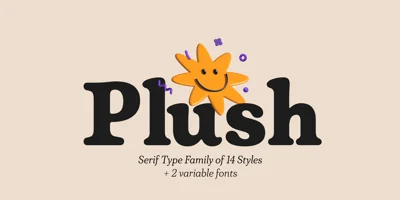
Plush Font
Plush Font is ideal for luxury hotel branding, high-end spa communications, premium bedding companies, boutique furniture stores, comfort-focused product packaging, intimate lounge signage, sophisticated interior design materials, and upscale lifestyle brand promotions.
What makes Plush Font exciting is its sumptuous comfort that embodies the tactile luxury and indulgent softness of premium materials through voluptuous letterforms. This lavish typeface features rounded, cushioned character shapes with gentle curves that evoke the satisfying embrace of plush fabrics and luxurious comfort, making it perfect for brands seeking to communicate ultimate relaxation and sensory indulgence in their premium lifestyle communications.
The Plush Font family includes regular and bold weights, plus soft alternates and comfort-inspired decorative elements that enhance the luxurious aesthetic with velvety styling options and indulgent typography variations for premium applications.
This indulgent typeface delivers exceptional comfort appeal and luxury sophistication, making Plush Font a valuable resource for premium comfort and lifestyle brands. The font's luxurious character makes it ideal for organizations wanting to convey ultimate comfort and sensory pleasure in their brand identity. Luxury hospitality brands and premium textile manufacturers particularly appreciate its ability to communicate indulgent comfort and sophisticated relaxation instantly to affluent consumers. The sumptuously designed letterforms ensure readability while preserving the tactile appeal of luxury comfort across all applications from spa brochures to high-end product catalogs. Whether you're creating materials for five-star resorts or developing branding for premium comfort products, this font provides the perfect combination of sensory indulgence and commercial sophistication. Creative professionals consistently choose this typeface for projects requiring that ideal balance of luxury comfort messaging and premium brand positioning, making it invaluable for lifestyle communications that celebrate both physical comfort and emotional well-being in today's stress-conscious luxury market.